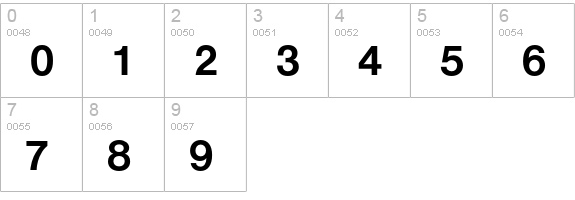
Olympia-Bold Font Details
Olympia-Bold is a strong, high-contrast variant in the Olympia typeface family \xE2\x80\x94 well suited to headlines, attention-grabbing titles, and strong calls-to-action.
Olympia-Bold font is a stunning display typeface that exudes elegance and modernity. With its bold and striking design, Olympia-Bold commands attention and adds a touch of sophistication to any project. Whether used for headlines, logos, or branding materials, this versatile font is sure to make a statement. The best part? Olympia-Bold is completely free to download at FontsMarket.com. Yes, you read that right - you can enhance your designs with this beautiful font without spending a dime. So why wait? Head over to FontsMarket.com and elevate your projects with the timeless appeal of Olympia-Bold.